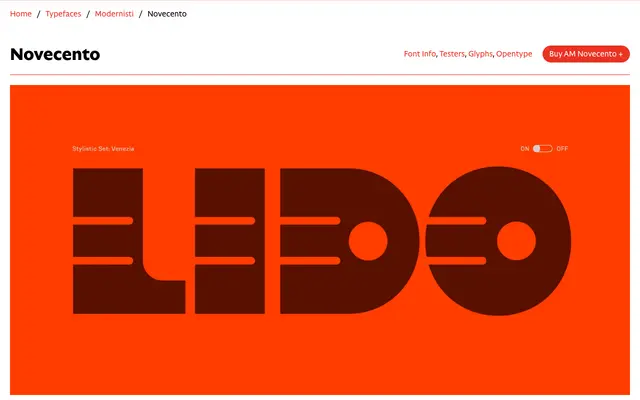
AM Novecento
CAST · Alessandro Bombieri · 2024
A digital revival of a 1937 Italian wood type, retaining its all-caps geometric construction and idiosyncratic details including the slanted 'escalator S' and gondola-bow A.
Originally produced by Xilografia di Verona between 1937 and 1940, this all-caps sans is built from squares and circles of uniform size, yielding a consistently rounded texture despite its dark weight. Certain letters carry strong thick/thin contrast, while others take unexpected forms: H is modelled on a lowercase h, and the sharply slanted S follows a fashionable 1930s convention noted by type historian Paul Shaw. The revival includes Venezia, the decorative variant with two horizontal white lines cutting through each letter, accessible as an OpenType stylistic set.
An all-caps geometric sans of Italian 1930s origin, constructed from squares and circles with pronounced thick/thin contrast in certain letters; its display-only, woodtype heritage and idiosyncratic letterforms place it firmly in the display category rather than general-purpose sans-serif.